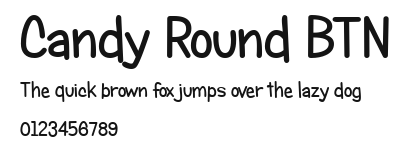
Candy Round BTN Preview
• Font Name: Candy Round BTN
• Full Font Name: Candy Round BTN Bold
About Candy Round BTN.ttf
Candy Round BTN.ttf is a modern, elegant sans-serif font designed for ultimate readability and visual harmony. Perfect for branding, headlines, web design, and print materials.